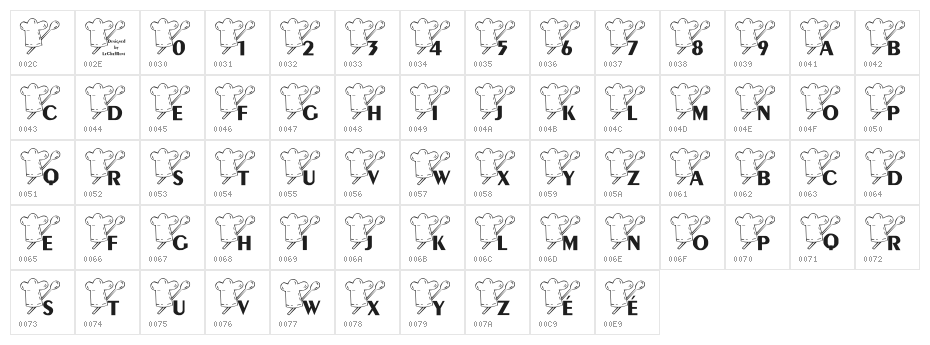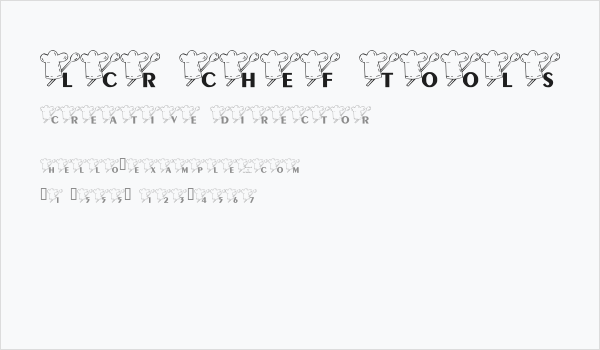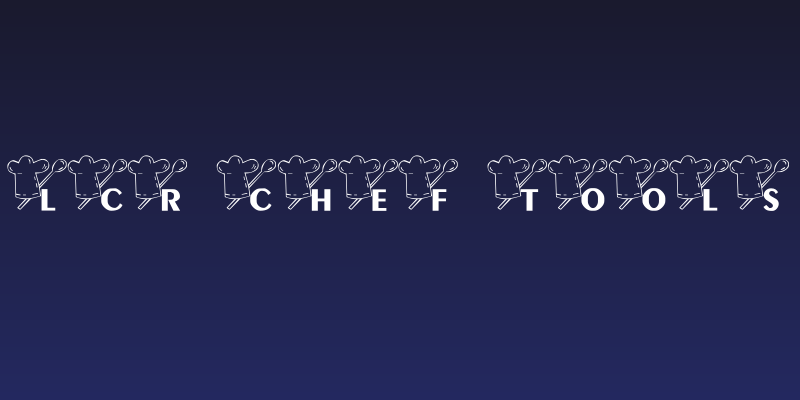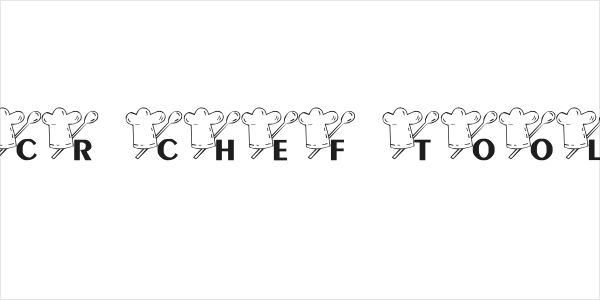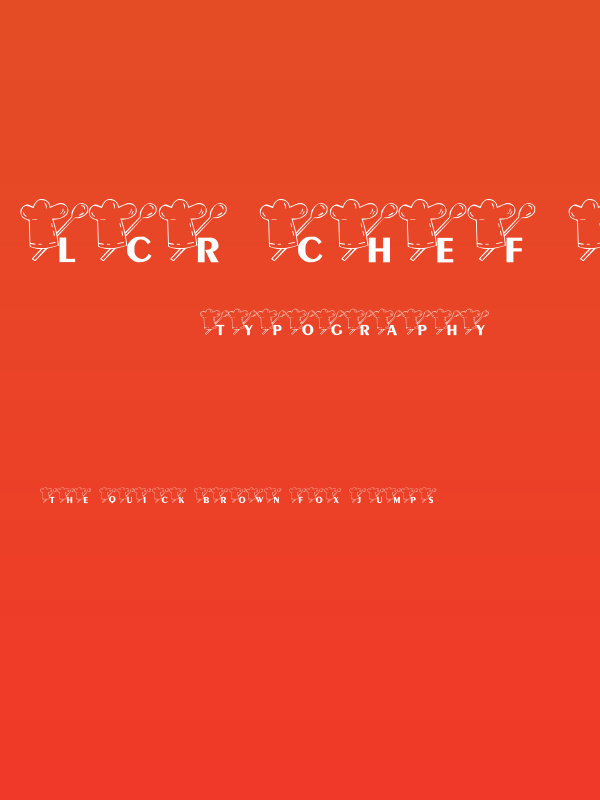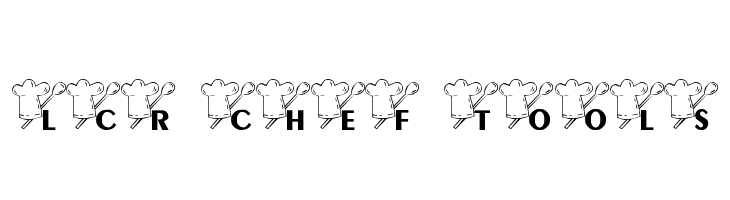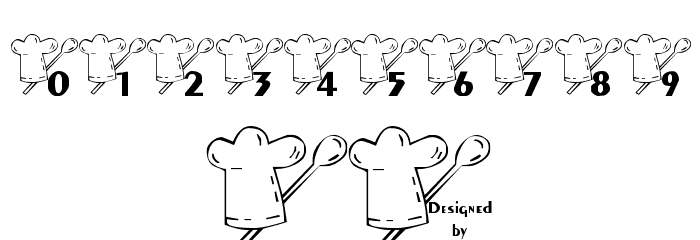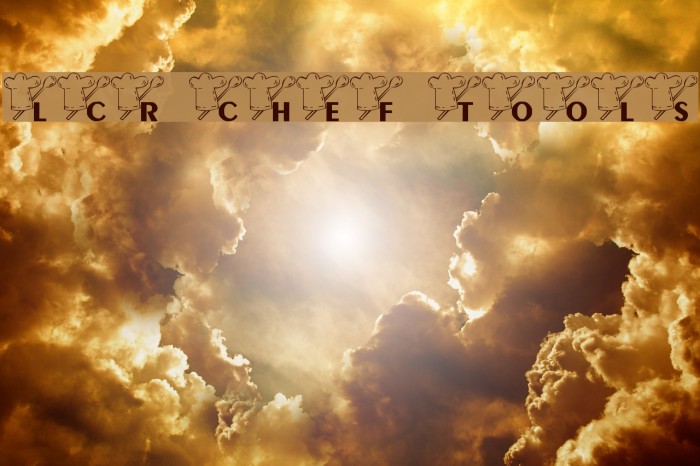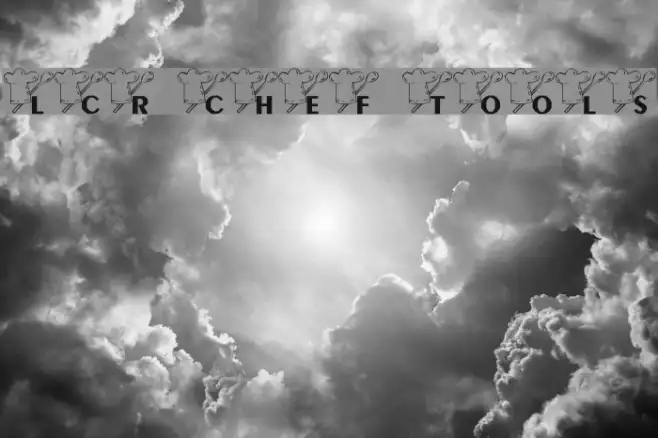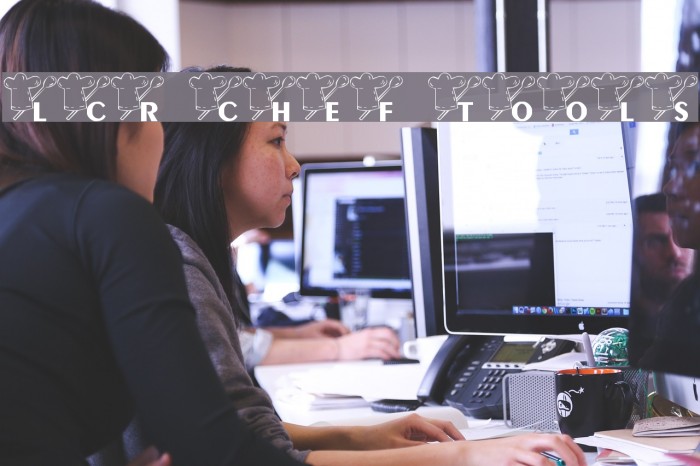
LCR Chef Tools Font
LCR Chef Tools Description
This playful and unique font features each character adorned with a chef's hat and spoon, giving it a whimsical culinary theme. The letters and numbers are bold and clear, making them easily readable despite the decorative elements. The font combines a sense of fun with practicality, making it suitable for a variety of creative projects. Its distinctive style is perfect for food-related designs, adding a touch of personality and charm. The characters are evenly spaced, ensuring readability while maintaining the decorative theme.
| Proposed Projects | Ideal for restaurant menus, culinary event posters, food blogs, and children's cookbooks. |